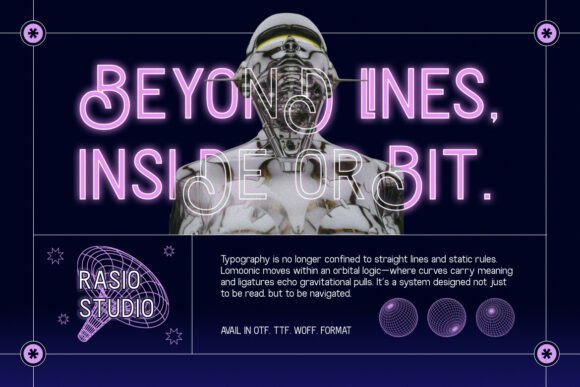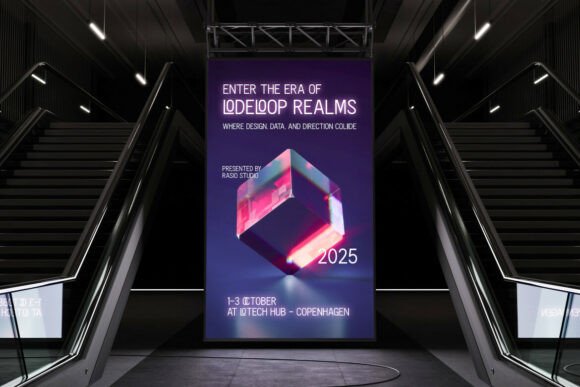
Introduction to Lomoonic Font
Have you ever found yourself staring at a blank design canvas, eager to bring a high-quality creative project to life, but struggling to find the perfect font to convey your vision? That’s where the Lomoonic Font comes in – a modern neo-grotesque sans-serif typeface that’s out of this world. Designed with a futuristic aesthetic and clean structural precision, this font is a game-changer for designers looking to add a touch of sophistication to their work.
Whether you’re working on a high-fashion lookbook, an electronic music cover, or a cutting-edge UI/UX interface, the Lomoonic Font is an ideal choice. Its sleek and contemporary visual tone is sure to signal “the next big thing” and leave a lasting impression on your audience. And the best part? It’s available for free download, making it an accessible design resource for creatives of all levels.
With its transparent background and refined geometric construction, the Lomoonic Font is a valuable addition to any designer’s toolkit. Its celestial, orbital character is waiting to be unleashed, and with the right combination of tight tracking and high-contrast color schemes, you can create truly stunning visual experiences that will leave a lasting impact.
- High-quality design ideal for creative projects requiring a unique and stylish touch.
- Includes a wide range of characters, including Latin, Cyrillic, and Greek alphabets, making it suitable for multilingual designs.
- Features a medium to high level of detail, allowing for crisp and clear display at resolutions up to 300 DPI.
- Designed to be highly versatile, making it suitable for a variety of design applications, from print materials to digital interfaces.
I recently had the chance to work with the Lomoonic Font in a creative project, and I was pleasantly surprised by its high quality. The font’s unique design and versatility make it a great addition to any design resource collection.
One of the standout features of the Lomoonic Font is its transparent background, which allows for seamless integration with images and other design elements. This makes it a great choice for designers looking to add a touch of elegance to their work.
- ✨ High-quality design: The font’s unique style and attention to detail make it a great choice for designers looking to add a touch of sophistication to their work.
- ✨ Versatile: The font can be used for a wide range of design projects, from branding and logos to website and social media graphics.
- ⚠️ Limited font sizes: The font may not be suitable for large-scale projects or designs that require a wide range of font sizes.
- ⚠️ Not ideal for bold typography: The font’s design may not be the best choice for bold, attention-grabbing typography.
Overall, I was impressed with the Lomoonic Font and would definitely recommend it to designers looking for a high-quality, creative font for their next project.
Here are some tips for getting the most out of the Lomoonic Font: Use the font on a transparent background to create a clean and minimalist design. Experiment with different font sizes and styles to add visual interest to your design. Use the font in combination with other design elements to create a cohesive and professional-looking project.